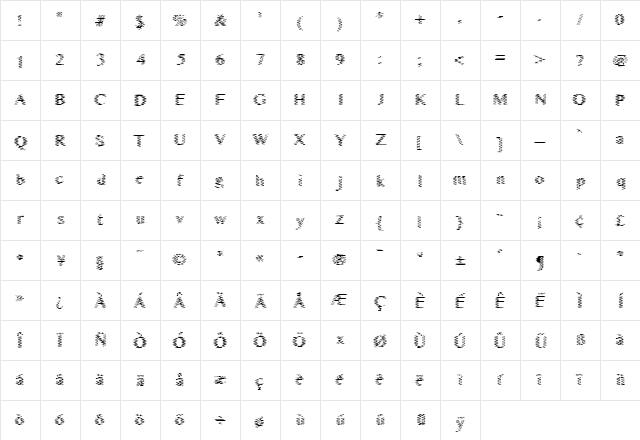
Singer Regular
Design Context for Singer Typeface
Singer is a composed and adaptable typeface that performs quietly and consistently across a wide range of design contexts.
Pro Tip: Use Singer in both headline and body roles to test its range before committing to a single application.